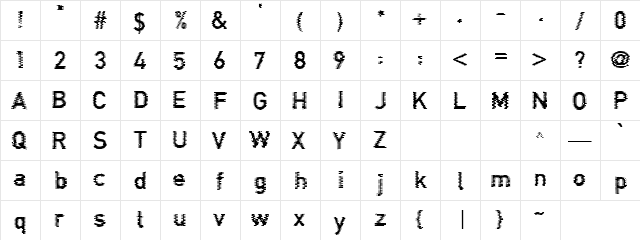
Jigzaw Regular Font Preview
Jigzaw Regular
Design Context for Jigzaw Typeface
Jigzaw is a composed and adaptable typeface that performs quietly and consistently across a wide range of design contexts.